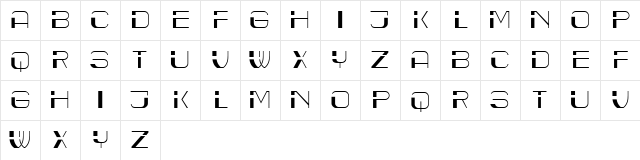
Cyber has a distinctly futuristic character, with geometric precision and clean angles that feel at home in technology, gaming, and sci-fi contexts. Its bold stroke weight gives it real presence on the page.
Pro Tip: Try Cyber with generous letter-spacing in UI labels and navigation - the geometric forms benefit from room to breathe.